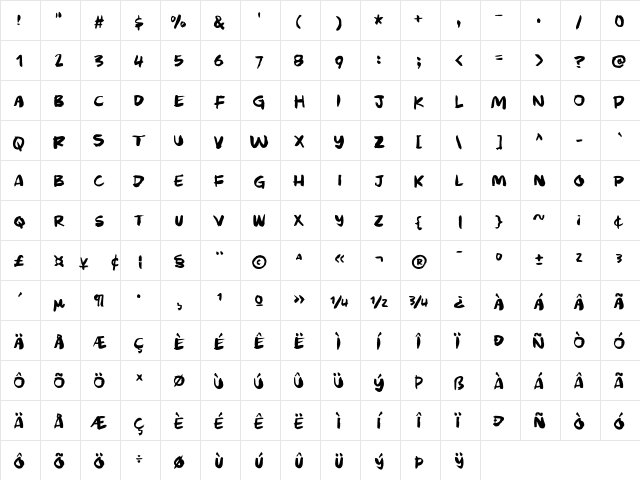
Murky Buzz DEMO Regular
| Foundry | Jakob Fischer / pizzadude.dk |
| Designer | Jakob Fischer / pizzadude.dk |
Design Context for Murky Buzz DEMO Typeface
Murky Buzz DEMO is a composed and adaptable typeface that performs quietly and consistently across a wide range of design contexts.